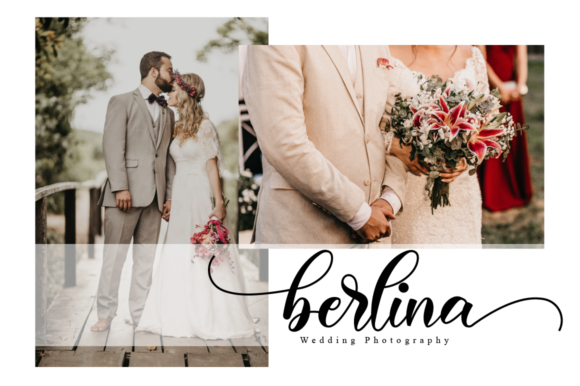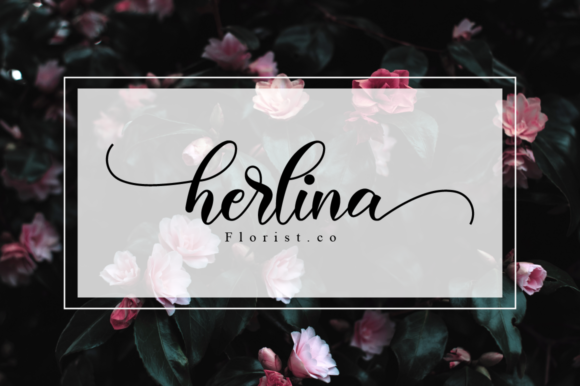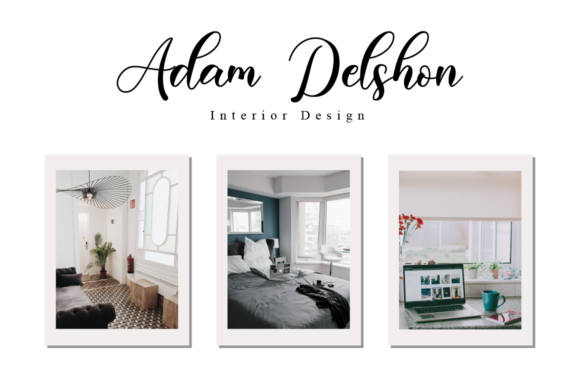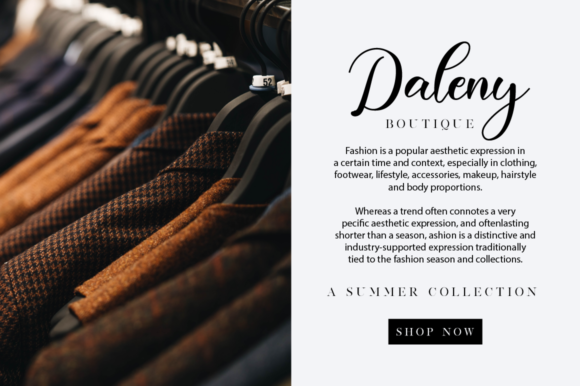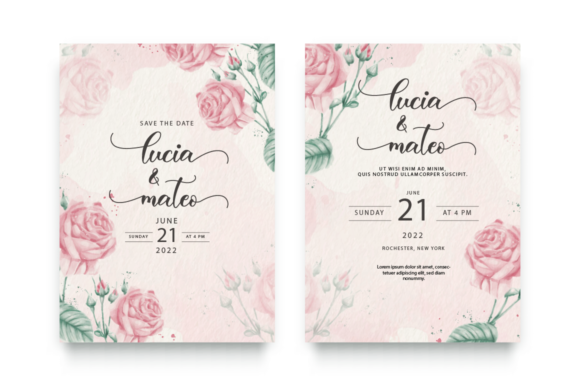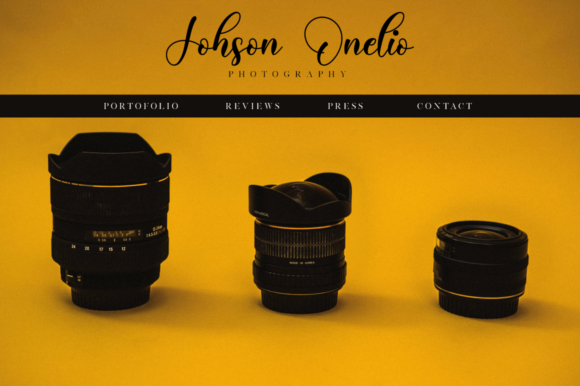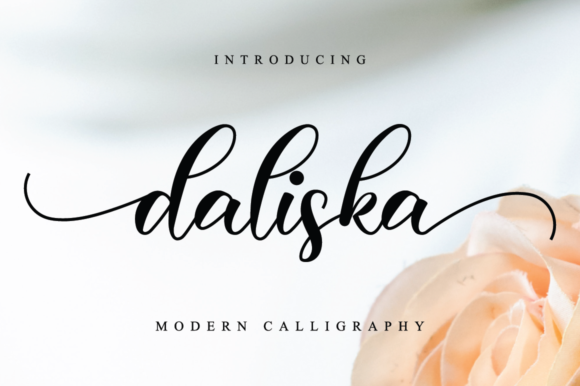
Discover the Elegance of Daliska Font: Elevate Your Designs with Style
Daliska is an incredibly beautiful script font that has been making waves in the design community. With its classy, elegant, and modern look, it’s no wonder why designers and crafters are falling in love with this stunning font. In this article, we’ll dive into the world of Daliska Font, exploring its features, uses, and benefits, and why it’s becoming a go-to choice for creatives.
What is Daliska Font?
Daliska Font is a script font that boasts a unique blend of classic and modern elements. Its elegant strokes, beautiful swashes, and refined lettering make it perfect for designs that require a touch of sophistication. Whether you’re working on a logo, branding, invitation, or social media post, Daliska Font is sure to impress.
Key Features of Daliska Font
- Classy and Elegant: Daliska Font exudes a sense of luxury and refinement, making it ideal for high-end designs.
- Modern Look: Its modern twist sets it apart from traditional script fonts, giving it a fresh and contemporary feel.
- Versatile: Daliska Font can be used for a wide range of designs, from logos and branding to invitations, stationery, and social media posts.
- Beautiful Swashes: The font features beautiful swashes that add an extra touch of elegance to your designs.
Uses of Daliska Font
Daliska Font is incredibly versatile, making it suitable for various design projects. Here are some of the ways you can use this stunning font:
- Logos and Branding: Create a lasting impression with a custom logo or branding that showcases your business’s personality and style.
- Invitations and Stationery: Add a touch of elegance to your invitations, wedding designs, and stationery with Daliska Font.
- Social Media Posts: Elevate your social media game with eye-catching posts that feature Daliska Font.
- Wedding Designs: Make your wedding designs truly special with the romantic and elegant feel of Daliska Font.
Benefits of Using Daliska Font
So, why should you choose Daliska Font for your design projects? Here are some benefits that set it apart:
- Unique and Memorable: Daliska Font helps you create designs that stand out from the crowd and leave a lasting impression.
- Time-Saving: With its wide range of uses, Daliska Font saves you time and effort in finding the perfect font for your project.
- Easy to Read: Despite its elegant and cursive nature, Daliska Font remains easy to read, making it perfect for body text and headlines.
- High-Quality: Daliska Font is crafted with attention to detail, ensuring that your designs look professional and polished.
Tips for Using Daliska Font Effectively
To get the most out of Daliska Font, here are some tips to keep in mind:
- Pair it with a Sans-Serif Font: Combine Daliska Font with a sans-serif font for a beautiful contrast that adds visual interest to your design.
- Experiment with Swashes: Don’t be afraid to try out different swashes and ligatures to add a personal touch to your designs.
- Use it for Headlines and Titles: Daliska Font shines as a headline or title font, so use it to make a statement in your designs.
Daliska Font is a game-changer for designers and crafters looking to elevate their designs with style and elegance. With its classy, modern look, and versatility, it’s no wonder why this font is quickly becoming a favorite among creatives. Whether you’re working on a logo, invitation, or social media post, Daliska Font is sure to impress. So why wait? Discover the beauty of Daliska Font and take your designs to the next level!